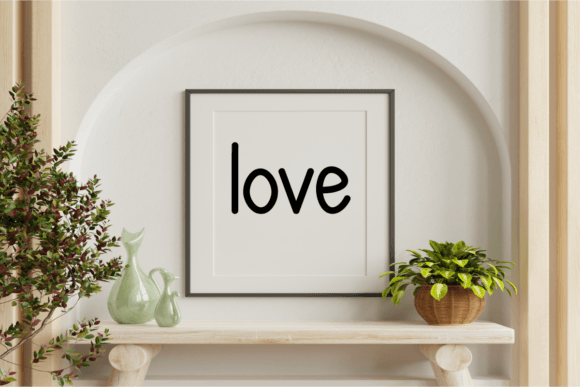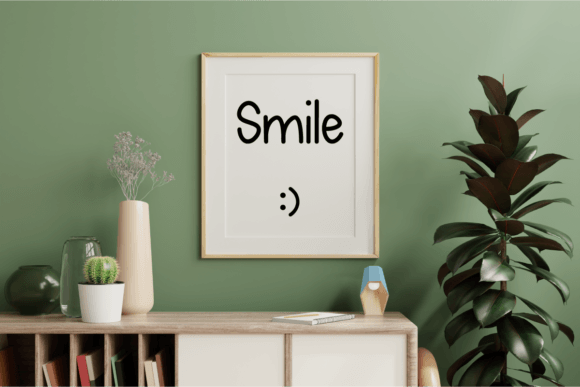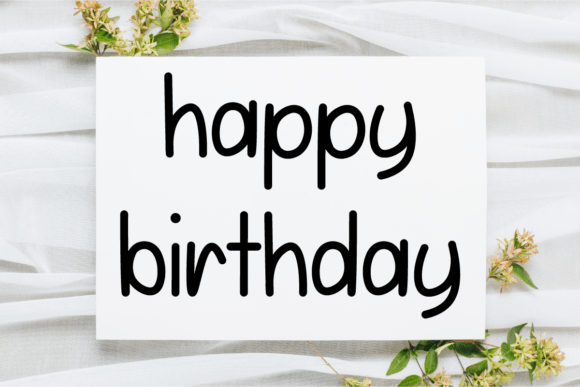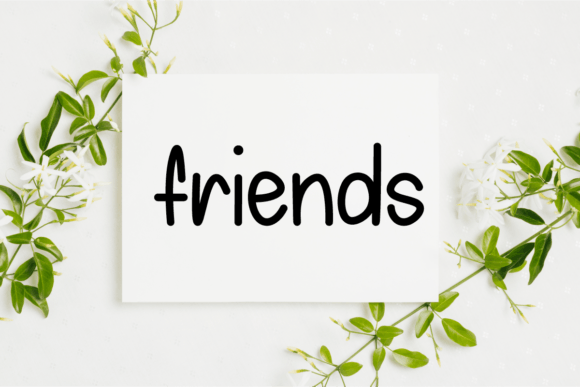
About Geneva Font
“Geneva” is a delightful and approachable handwritten font that adds a sense of fun and whimsy to your design projects. This whimsical and slightly quirky font is sure to bring a touch of brightness to your designs. You can confidently incorporate it into your projects, and you’ll be delighted with the results. “Geneva” is a versatile typeface that’s perfect for a wide range of applications, including logos, wedding invitations, quotes, advertisements, print materials, magazines, and more.
“Geneva” font embodies a playful and friendly aesthetic that instantly infuses your designs with a sense of joy and creativity. Its whimsical letterforms radiate positivity and charm, making it an excellent addition to a diverse range of creative endeavors.
For logos and branding materials, “Geneva” brings a unique and memorable touch that helps your brand stand out from the crowd. It adds character and personality to your visual identity, making it memorable and distinctive.
In the realm of wedding invitations, where a touch of brightness and personality is desired, “Geneva” excels. It creates a sense of joy and celebration, setting the tone for a memorable event.
For quotes and advertisements, “Geneva” adds a playful and eye-catching element that draws attention and engages the audience. It ensures that your message is conveyed in a delightful and captivating manner.
In summary, “Geneva” is more than just a font; it’s a creative tool that brings a sense of fun and whimsy to your work. Its versatility and friendly charm make it suitable for a wide range of projects, allowing you to create designs that are not only visually appealing but also emotionally engaging. Embrace “Geneva” and let its playfulness and creativity enhance your creative endeavors.